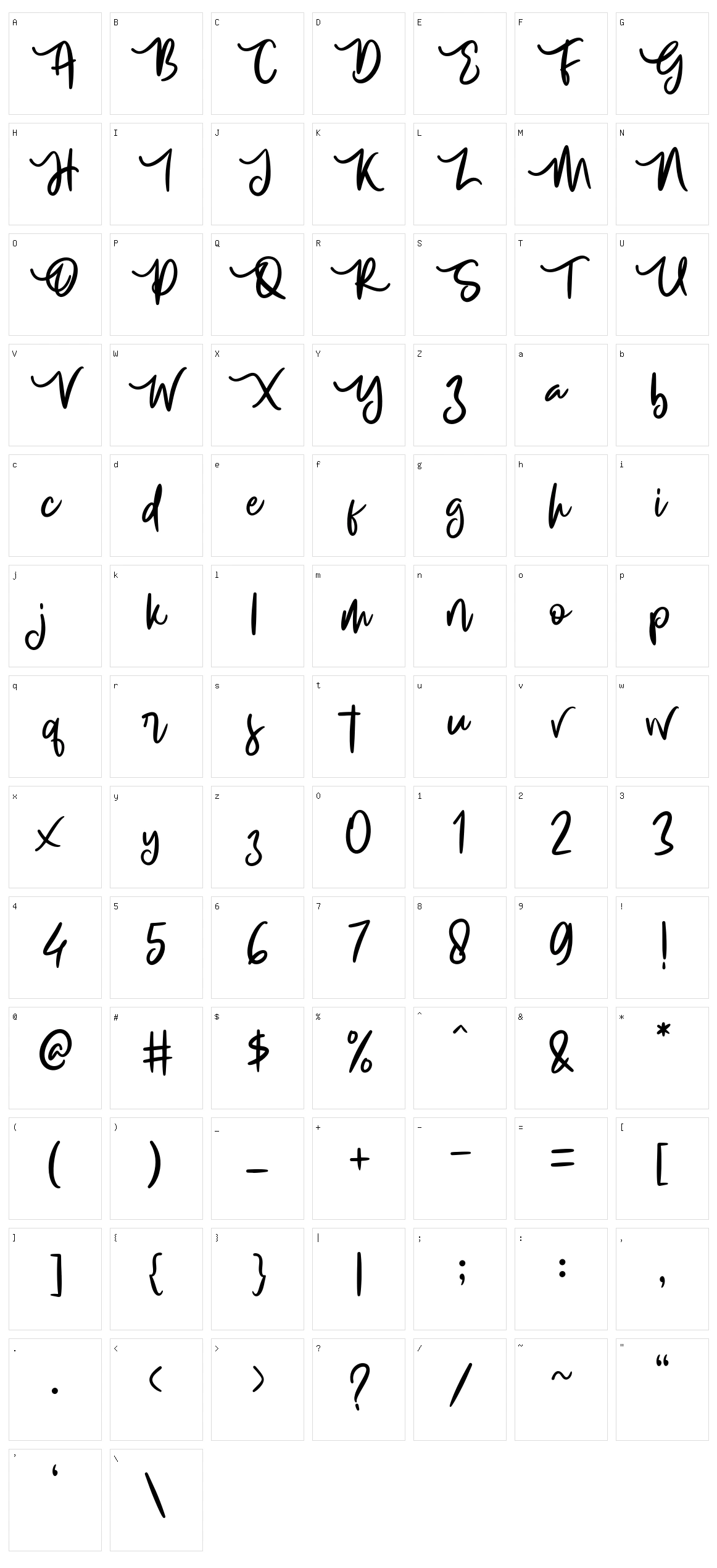
The free font Creamy Buttermilk is carefully designed by Alpaprana Studio, showcasing a thoughtful balance of creativity and usability and falls under the Script font style. When you download the ZIP file, it contains only 236.3 KB of font files, making it lightweight and quick to download. Please review the license details below to understand permitted usage and distribution rights. If license information is not available, we recommend using this font for personal projects only or contacting the author directly for commercial usage permissions.